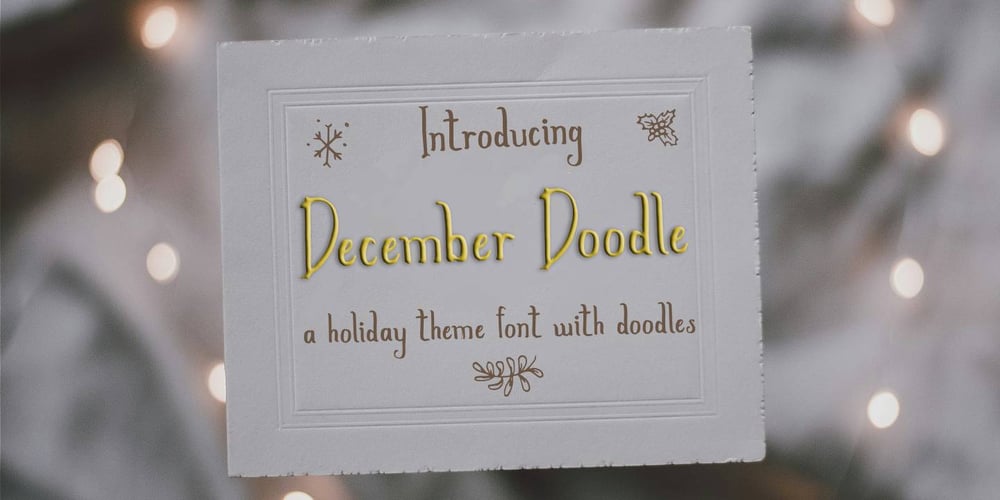
December Doodle Font Family was designed by Monica Tatontos and published by Moncimon. December Doodle contains 2 styles and family package options. December Doodle is a whimsical hand-drawn font that brings the cozy magic of winter to life. This unique typeface includes both a playful alphabet and a charming set of integrated doodles, featuring wintery elements like snowflakes, mittens, and festive stars.The seamless pairing of letters and illustrations makes December Doodle perfect for holiday cards, seasonal branding, gift tags, and social media posts. Whether you’re designing a warm greeting or a cheerful decoration, this font adds a delightful touch of personality and creativity to your projects.